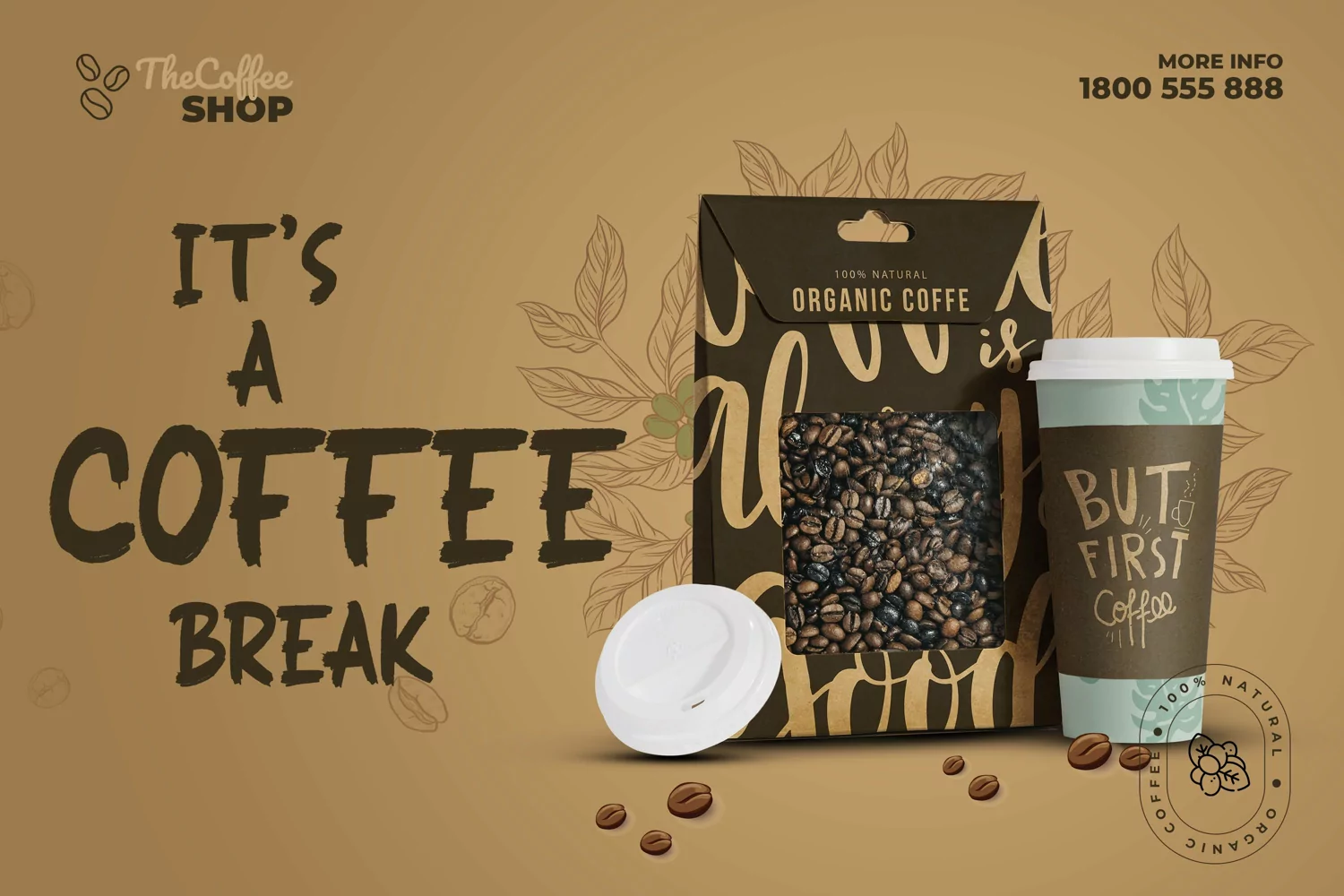
BLASTER is a casual, fun display font, created by using a brush pen.
It has an urban and trendy feel and it will most definitely fit a wide range of designs.
This font is perfect for brand announcements, packaging, quotes, branding, advertisements, blogs, logos, invitations and more!
This font is PUA encoded which means you can access all of the stunning glyphs and swashes with ease! It also features a wealth of special features including alternate glyphs and ligatures.